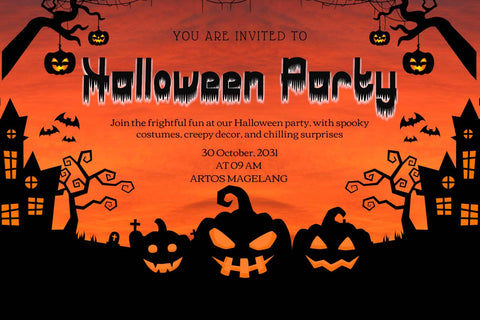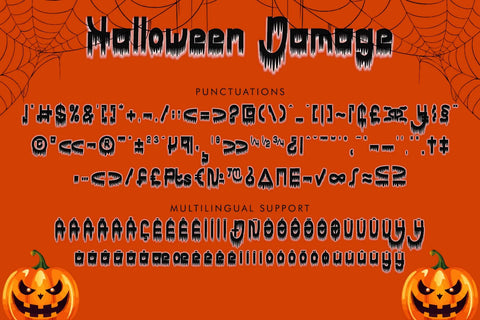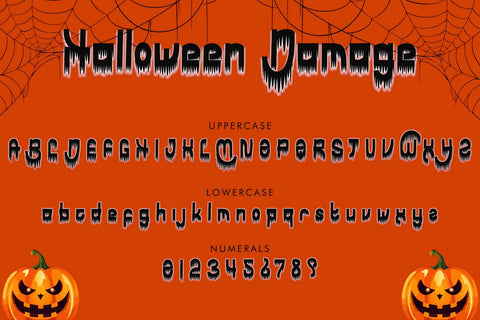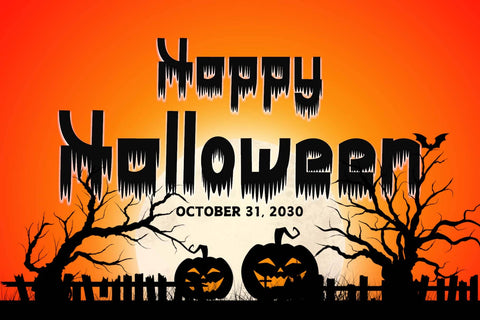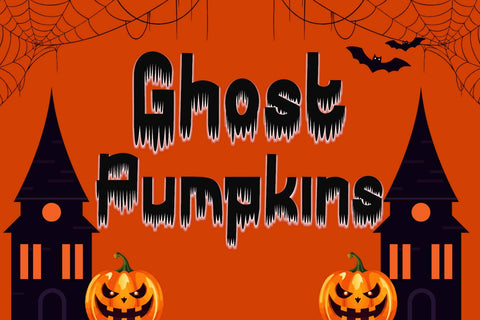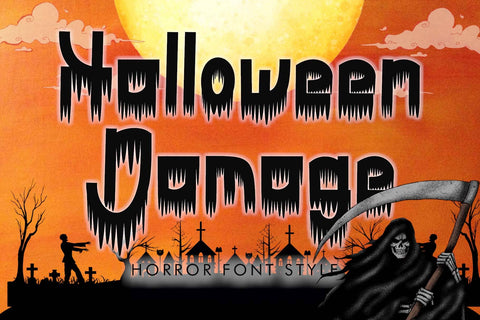
Halloween Damage
"Halloween Damage" is a spooky and unique Halloween display font. It features uppercase and lowercase letters, numerals, punctuations, and multilingual support. It's perfect for Halloween, Christmas, horror movie titles, book titles, tattoos, stickers, posters, prints, banners, branding, stickers, logos, fall, autumn, comics, magazines, social media, and more.